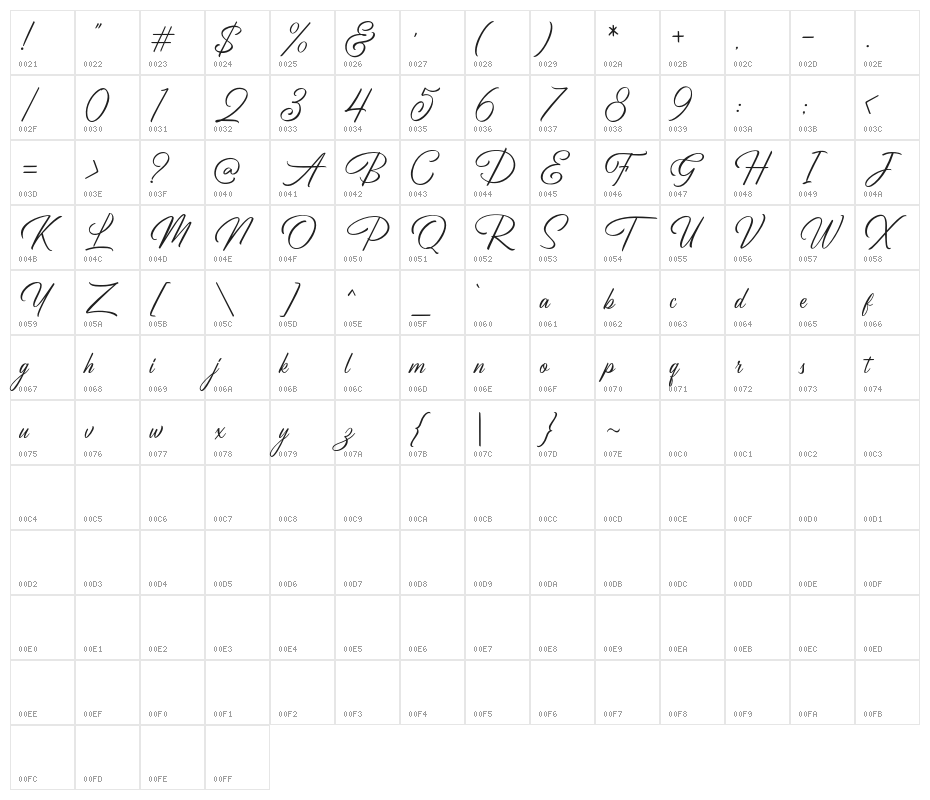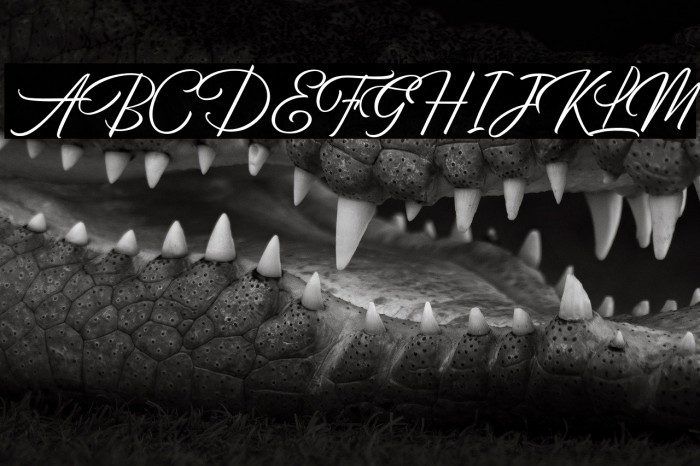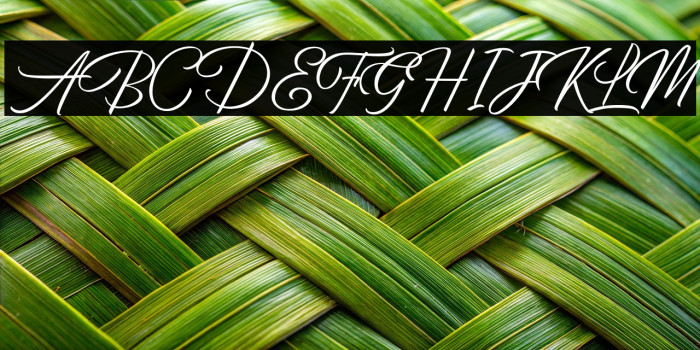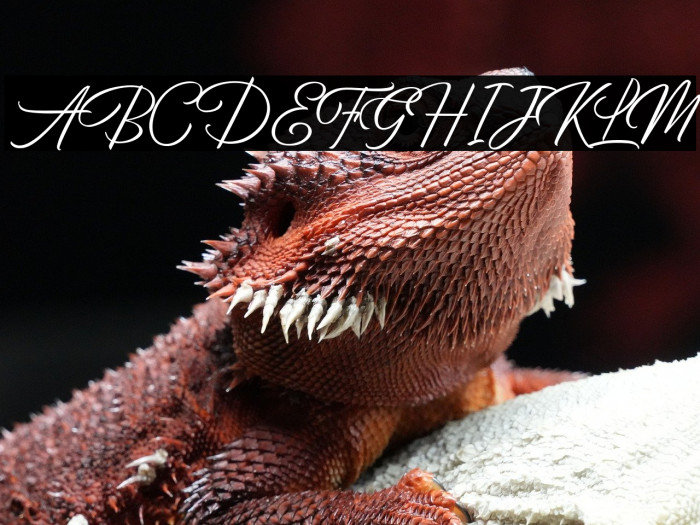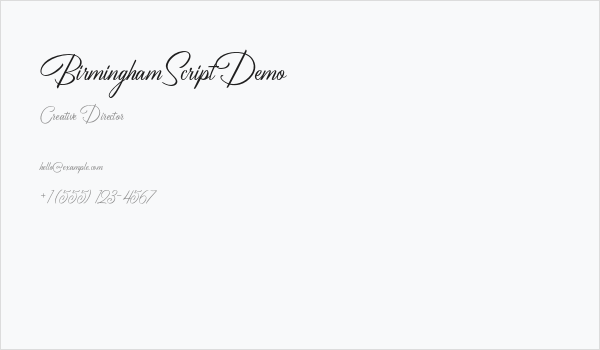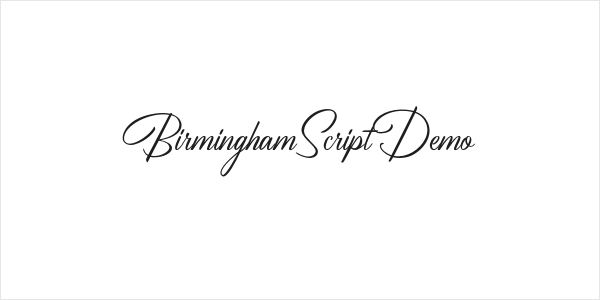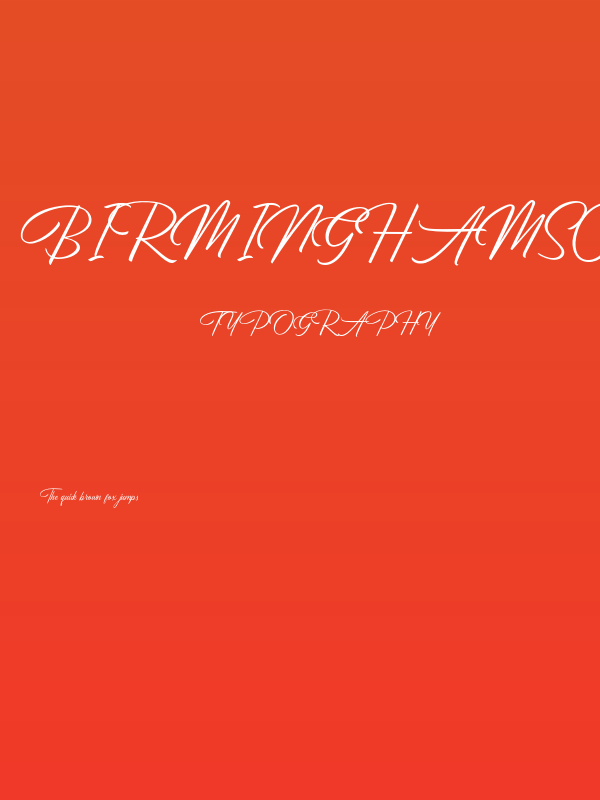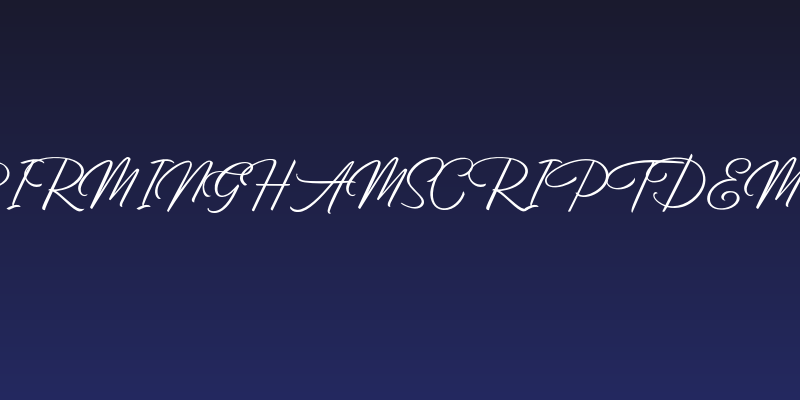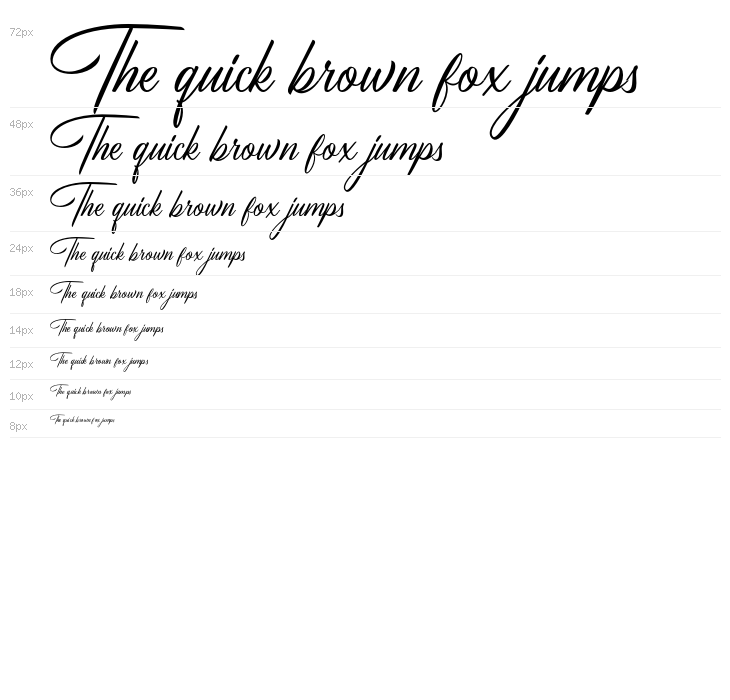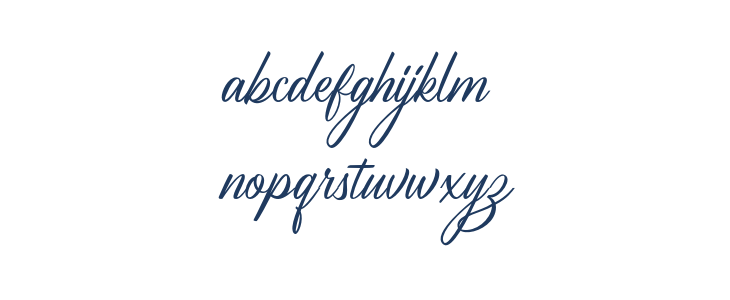
BirminghamScriptDemo Font
BirminghamScriptDemo Description
This elegant script font features fluid, cursive strokes that convey a sense of sophistication and grace. The uppercase letters are characterized by sweeping curves and flourishes, while the lowercase letters maintain a consistent flow with slightly more restrained embellishments. The numerals are designed with a similar flair, ensuring a cohesive look across all characters. Special characters are thoughtfully integrated, maintaining the overall aesthetic. The font's design is ideal for projects that require a touch of elegance and refinement.
| Overall Style | Elegant |
| Use Case | Logos, Invitations, Decorative text |
| Proposed Projects | Ideal for wedding invitations, elegant branding, personal stationery, and upscale packaging. |